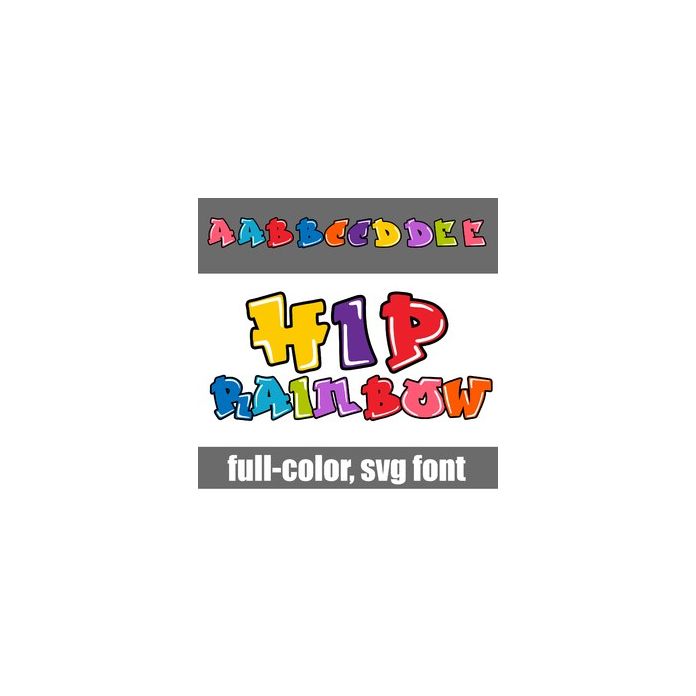
This full-color font features a graffiti-style lettering in a rainbow of colors. There is a an alt version w/ secondary colors available through your system's or Silhouette's glyph map.